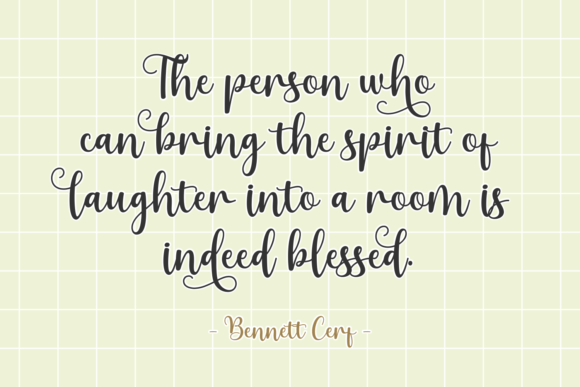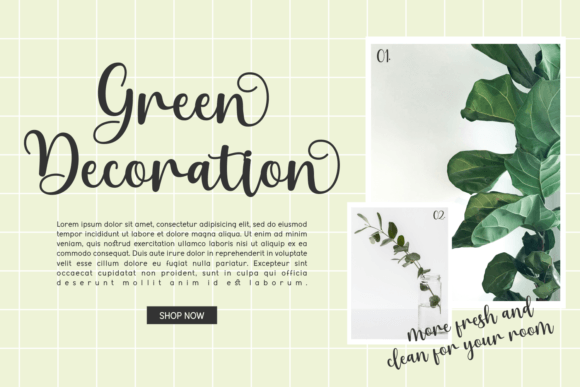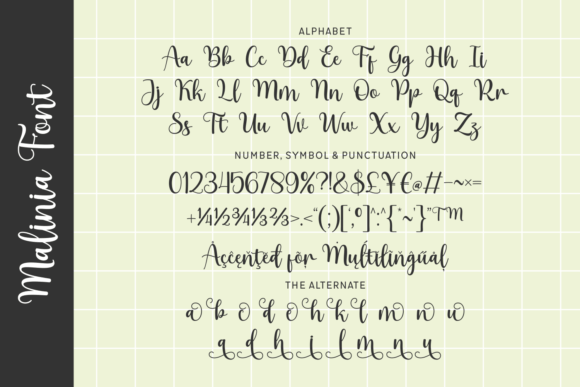
Introduction to Malinia Font
Have you ever found yourself rummaging through your stash of creative supplies, searching for the perfect font to match your vision? The moment when the right font clicks, and your project transforms from ordinary to extraordinary, is truly exhilarating. For designers and creatives, the hunt for that elusive font is an ongoing quest. This is where Malinia Font comes in – a modern calligraphy typeface that’s about to become your new go-to design resource.
With its high-quality design and versatility, Malinia Font is perfect for a wide range of creative projects, from wedding invitations and greeting cards to event stationery and branding materials. Its transparent background and elegant script make it a valuable asset for designers looking to elevate their work.
Key Features of Malinia Font
- High-quality design resource with a unique, creative style suitable for various projects
- Transparent background for easy customization and versatility
- Designed with a modern aesthetic, perfect for branding, logos, and creative projects
- Includes a range of characters, including uppercase and lowercase letters, numbers, and punctuation
Honest Review: Malinia Font
I recently had the chance to work with the Malinia Font, and I must say it’s a great addition to any designer’s toolkit. This font is perfect for a high-quality, creative project where you want to make a statement.
- Transparent background, making it easy to layer and combine with other design elements
- High-quality vector graphics, allowing for crisp and clear text at any size
- Wide range of uses, from branding to web design
While the Malinia Font is a great resource, there are some limitations:
- Only available in a limited number of weights and styles
- May not be suitable for very small or very large text sizes
Overall, I’m impressed with the Malinia Font. It’s a solid choice for any design project where you want a professional, high-quality look. Just be aware of its limitations, and you’ll be golden.
Tips for Getting the Most Out of Malinia Font
Use the transparent background feature to create stunning designs with this free download. Experiment with different font sizes, colors, and combinations to add a creative touch to your project. This font is ideal for designers who want a unique and high-quality design resource.
Malinia Font is commonly used in logo design, infographics, and marketing materials. Its unique design and high-quality features make it an excellent choice for designers who want to create eye-catching and professional-looking projects.
Q: Is Malinia Font suitable for print or digital projects?
Malinia Font is a versatile design resource that can be used for both print and digital projects. Its high-quality design and transparent background make it perfect for creating engaging digital content, such as website headers, social media graphics, or presentations. For print projects, Malinia Font can be used for business cards, brochures, or other marketing materials where a clean and modern design is required.